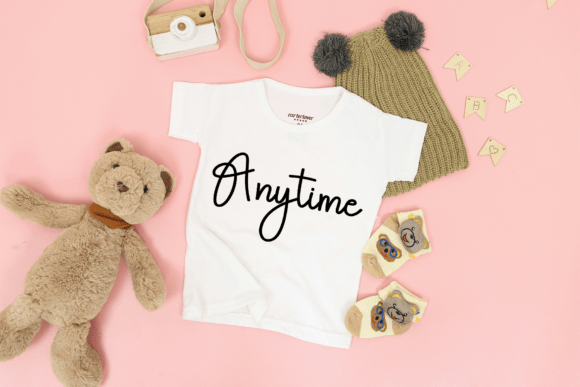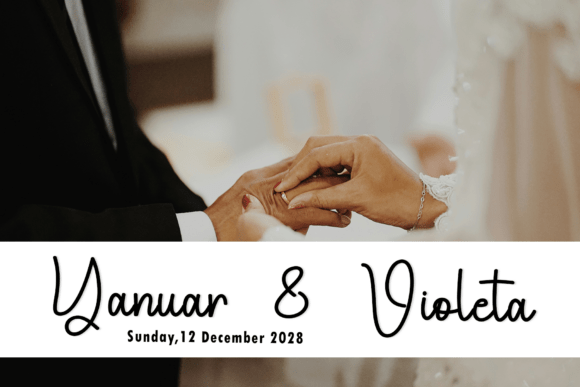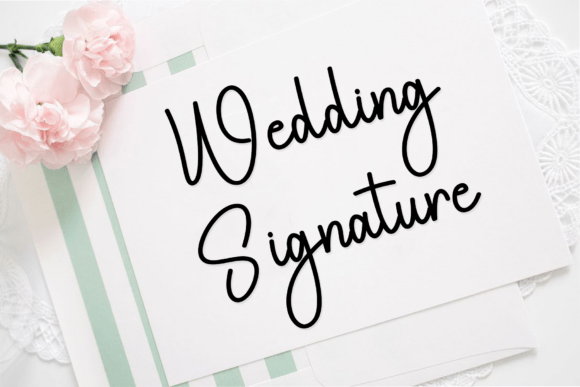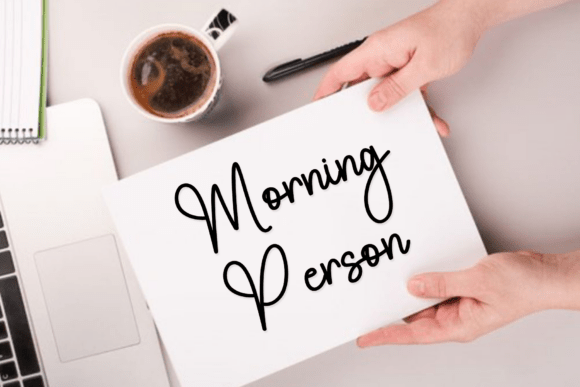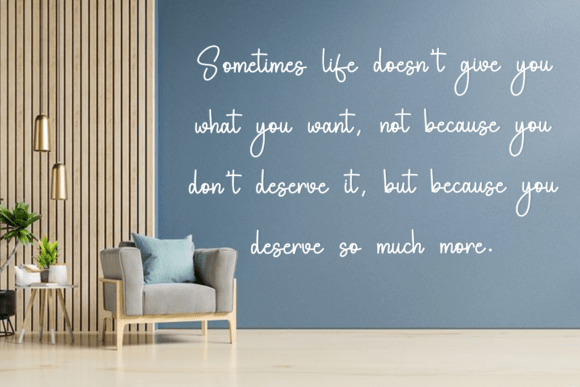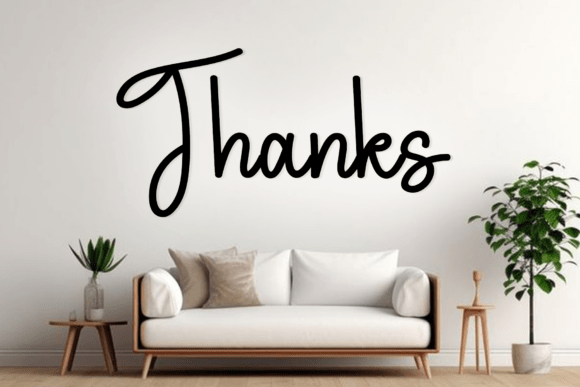
Step into the World of High-End Design
Have you ever found yourself in the midst of a creative project, searching for the perfect font to elevate your design and leave a lasting impression? You scroll through countless options, but nothing seems quite right – until you stumble upon the Beautica font. This luxurious typeface is the perfect blend of modern handwriting and sophistication, designed to make your words feel like a high-end experience.
The Beautica Font is a game-changer for designers, offering a curated elegance that’s highly sought after in the contemporary fashion and lifestyle industries. Whether you’re creating a boutique brand identity or a professional social media header, this font adds a touch of luxury-casual charm that sets you apart from the rest.
Key Features of Beautica Font
- Size: The font family includes 6 weights, ranging from Light to Black, allowing for a high degree of customization and flexibility in design.
- Unique Characteristics: The font features a unique blend of modern and vintage elements, with intricate details and subtle flair, making it perfect for creating sophisticated and elegant designs.
- Language Support: Beautica Font supports a wide range of languages, including Latin, Cyrillic, and Greek scripts, making it a versatile choice for global branding and design projects.
- Scalability: The font is designed to be highly scalable, ensuring that it remains legible and visually appealing at various font sizes, from small captions to large headlines.
Beautica Font Review
Beautica Font is a modern script font that I’ve had the pleasure of working with, and I must say it’s a mixed bag.
- Beautiful connections: The font’s flowing connections between letters are truly beautiful and add a touch of elegance to any design.
- Good legibility: Despite being a script font, Beautica is relatively easy to read, especially at larger font sizes.
- Customization options: The font comes with a range of weights, styles, and language support, making it versatile for various design projects.
- May be too ornate: Some designers might find Beautica too ornate or overly decorative, which could detract from the overall message or tone of the design.
- Not ideal for small text: At smaller font sizes, the connections between letters can become too thin and difficult to read.
- Limited expressiveness: While Beautica is a beautiful font, it may not be the best choice for designs that require a lot of expressiveness or emotional depth.
Overall, I’d say Beautica Font is a solid choice for designers who want to add a touch of elegance and sophistication to their projects. However, it may not be the best fit for every design or project.
Beautica Font is ideal for:
- Creativity and artistic projects
For the most striking results, use Beautica Font in combination with bold colors and creative graphics.